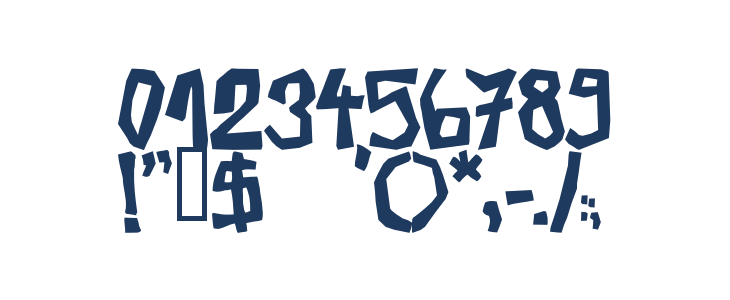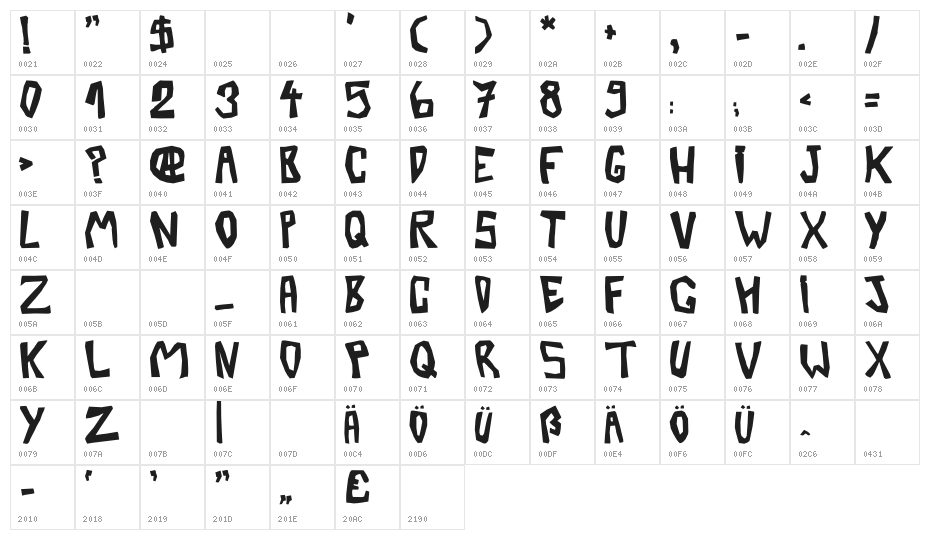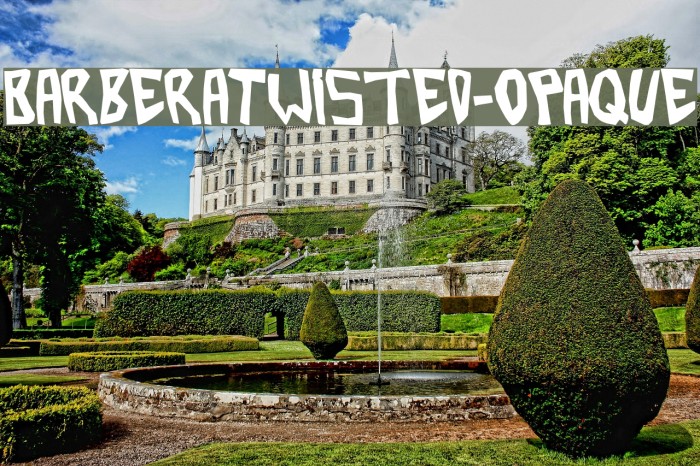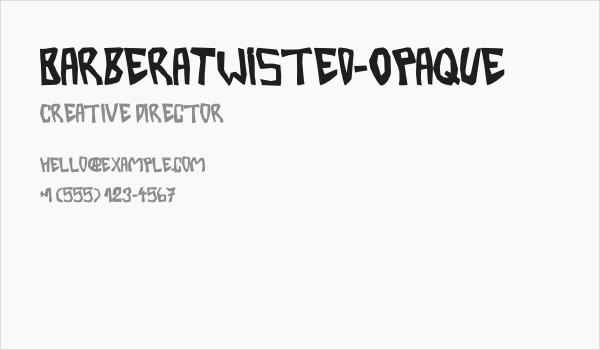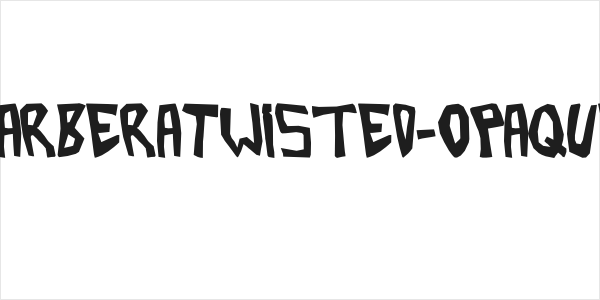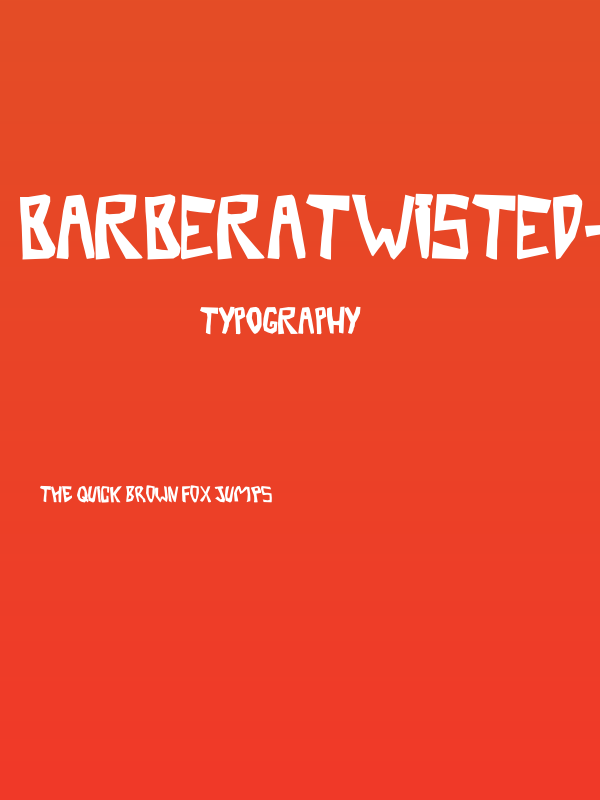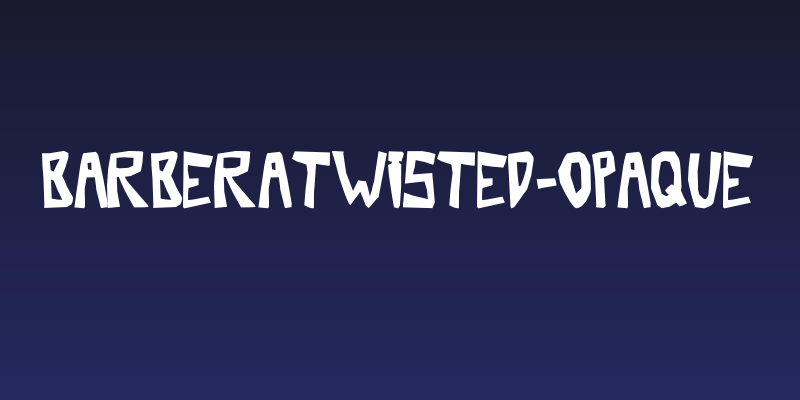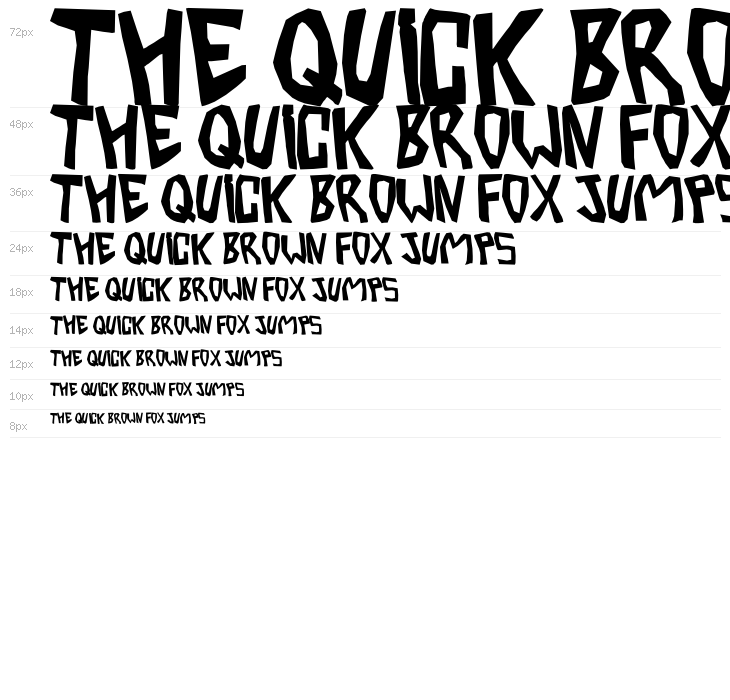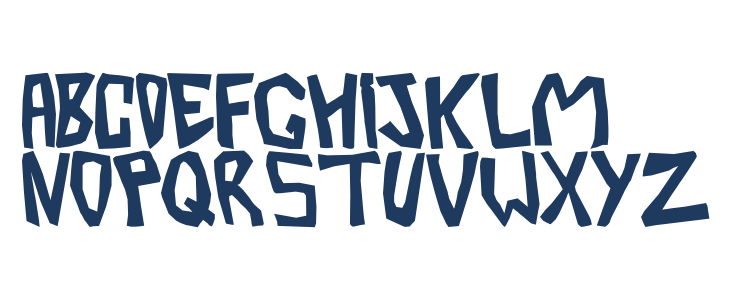
BarberaTwisted-Opaque Font
BarberaTwisted-Opaque Description
This font features a bold and dynamic style with a twisted, opaque appearance. The characters have a hand-drawn, irregular quality, giving them a unique and artistic flair. The uppercase and lowercase letters maintain a consistent style, with sharp angles and varying line thicknesses that create a sense of movement and energy. The numbers and special characters follow the same design principles, ensuring a cohesive look across all elements. This font's distinctive style makes it stand out, perfect for projects that require a bold and creative touch.
| Proposed Projects | Ideal for posters, album covers, artistic branding, and creative advertisements. |